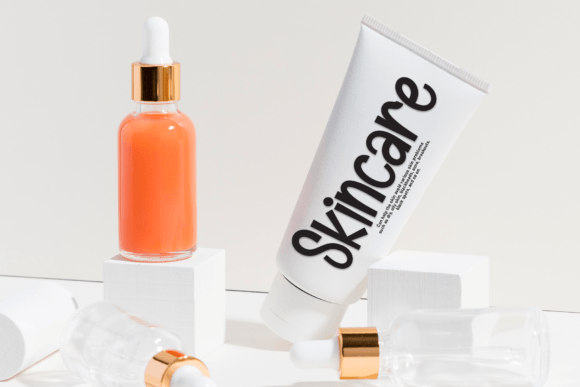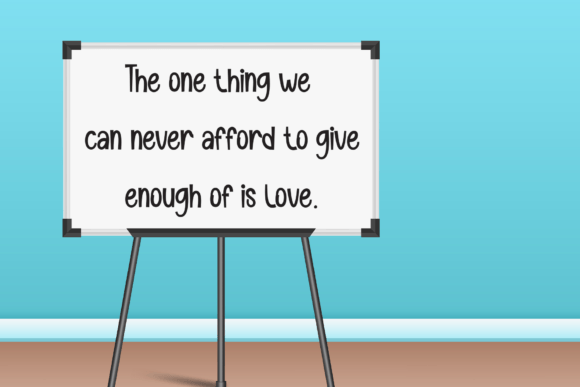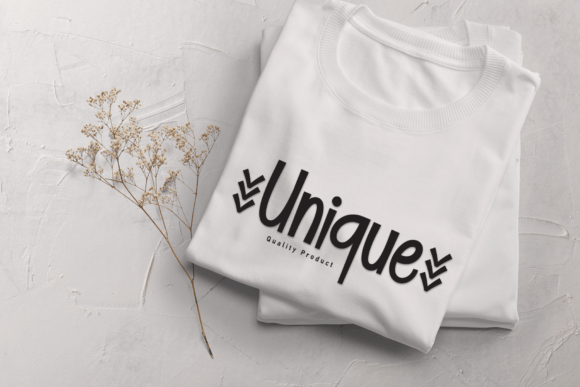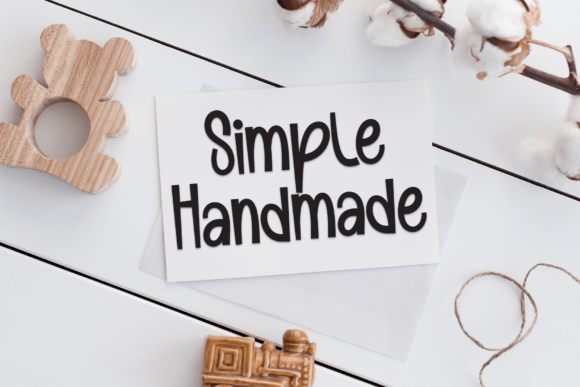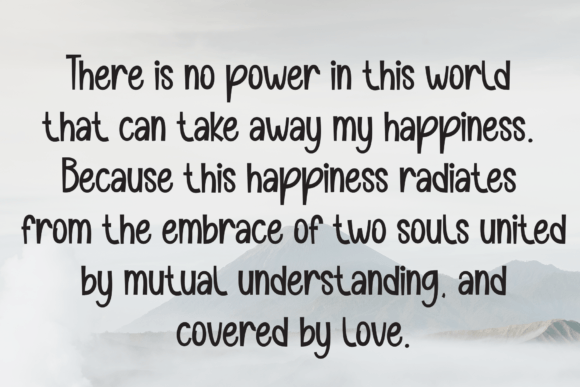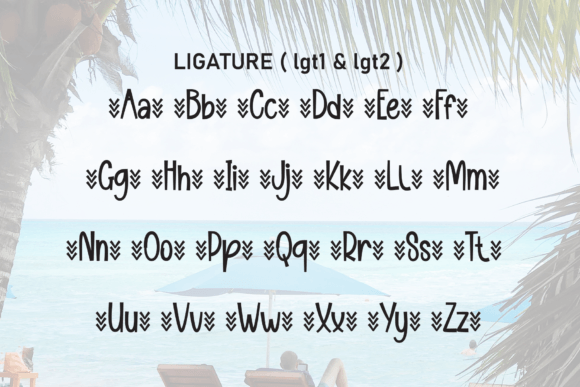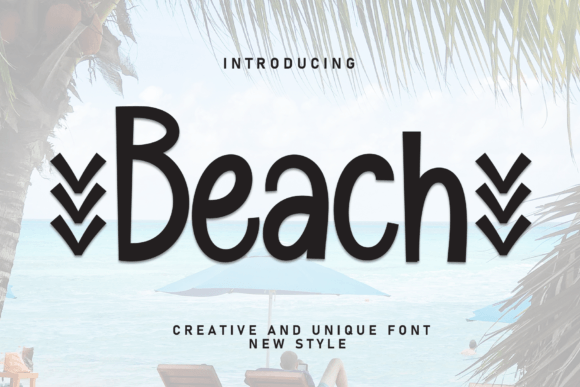
Discover the Charming Allure of Beach Font: Adding a Splash of Fun to Your Designs
Are you looking for a typeface that exudes sweetness and friendliness? Do you want to add a touch of joy to your designs, whether it’s a heartfelt wedding invitation, a whimsical card, or any other creative project? Look no further than the Beach Font! This unique and charming typeface is perfect for designers and crafters who want to infuse their work with a dash of fun and playfulness.
The Characteristics of Beach Font
The Beach Font is a one-of-a-kind typeface that stands out for its sweet and friendly appearance. Every stroke of this font is carefully crafted to convey a sense of joy and approachability, making it perfect for designs that require a personal touch. Whether you’re creating a romantic wedding invitation or a playful birthday card, the Beach Font is sure to bring a smile to your audience’s faces.
Uses of Beach Font
The Beach Font is incredibly versatile and can be used in a wide range of design projects, including:
- Wedding invitations and stationery: Add a touch of romance and whimsy to your wedding designs with the Beach Font.
- Cards and greetings: Create playful and heartfelt cards for birthdays, anniversaries, and other special occasions.
- Social media graphics: Add a splash of fun to your social media posts and stories with the Beach Font.
- Branding and packaging: Use the Beach Font to create a friendly and approachable brand identity.
Why Choose Beach Font?
So, why choose the Beach Font over other typefaces? Here are just a few reasons:
- Unique and eye-catching: The Beach Font is a one-of-a-kind typeface that will set your designs apart from the rest.
- Emotional connection: The sweet and friendly appearance of the Beach Font is sure to create an emotional connection with your audience.
- Versatile: The Beach Font can be used in a wide range of design projects, from formal to informal.
- Easy to read: Despite its playful appearance, the Beach Font is easy to read and understand.
Tips for Using Beach Font
Here are a few tips for using the Beach Font in your designs:
- Pair with complementary fonts: Pair the Beach Font with complementary fonts to create a visually appealing design.
- Use in moderation: While the Beach Font is playful and fun, it’s best to use it in moderation to avoid overwhelming your design.
- Experiment with colors: The Beach Font looks great in a variety of colors, so don’t be afraid to experiment and find the perfect hue for your design.
In conclusion, the Beach Font is a unique and charming typeface that is perfect for designers and crafters who want to add a touch of fun and playfulness to their designs. With its sweet and friendly appearance, versatility, and ease of use, the Beach Font is sure to become a favorite in your design toolkit. So why not give it a try and see how it can elevate your designs to the next level?
Whether you’re a seasoned designer or a crafty DIY enthusiast, the Beach Font is sure to bring a smile to your face and a touch of joy to your creations. So go ahead, immerse yourself in the charming allure of Beach Font, and watch your designs come to life with a splash of fun and playfulness!